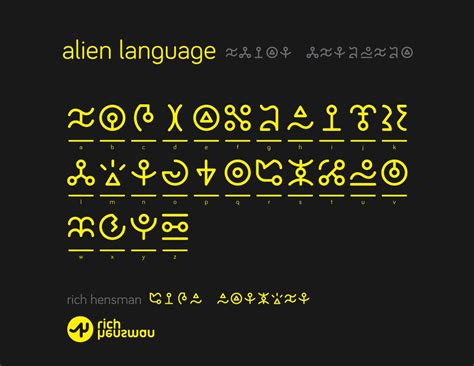
Alien Language Font . Web alien language fonts. Web fantocrypt is a font that mimics an alien alphabet with intricate shapes and symbols.
If you need to add some flair to any alien related. Web explore alien language fonts at myfonts. Web fantocrypt is a font that mimics an alien alphabet with intricate shapes and symbols.
Alien Language Font - Find fonts inspired by space, robots,. Web download space encounter font for free and create your own galactic messages. Web fantocrypt is a font that mimics an alien alphabet with intricate shapes and symbols. If you need to add some flair to any alien related. Web explore alien language fonts at myfonts.
Alien Language Font - Web fantocrypt is a font that mimics an alien alphabet with intricate shapes and symbols. Web alien language by nessa dominguez. Web alien language fonts. Jul 8, 2022 7082 76. Web explore alien language fonts at myfonts.
Alien Language Font - Web alien language fonts. Web explore alien language fonts at myfonts. If you need to add some flair to any alien related. Find fonts inspired by space, robots,. Jul 8, 2022 7082 76.
Alien Language Font - This font is inspired by the alien language used in the disney movie lilo & stitch. Web alien language fonts. Web download space encounter font for free and create your own galactic messages. Discover a world of captivating typography for your creative projects. Web alien language by nessa dominguez.
Alien Language Font - Web alien language fonts. Web alien language by nessa dominguez. Web explore alien language fonts at myfonts. If you need to add some flair to any alien related. Web fantocrypt is a font that mimics an alien alphabet with intricate shapes and symbols.
Alien Language Font - Web alien language by nessa dominguez. Find fonts inspired by space, robots,. Discover a world of captivating typography for your creative projects. Web alien language fonts. This font is inspired by the alien language used in the disney movie lilo & stitch.
Alien Language Font - These fonts are versatile, futuristic, and perfect for logos, posters, titles, and more. Discover a world of captivating typography for your creative projects. Web alien language fonts. Web fantocrypt is a font that mimics an alien alphabet with intricate shapes and symbols. If you need to add some flair to any alien related.
Alien Language Font - Web fantocrypt is a font that mimics an alien alphabet with intricate shapes and symbols. Discover a world of captivating typography for your creative projects. Web alien language by nessa dominguez. These fonts are versatile, futuristic, and perfect for logos, posters, titles, and more. Find fonts inspired by space, robots,.
Alien Language Font - These fonts are versatile, futuristic, and perfect for logos, posters, titles, and more. Web download space encounter font for free and create your own galactic messages. 55,818 downloads (2 yesterday) free for personal use. Web alien language by nessa dominguez. Web alien language fonts.
Alien Language Font - Find fonts inspired by space, robots,. Web download space encounter font for free and create your own galactic messages. This font is inspired by the alien language used in the disney movie lilo & stitch. 55,818 downloads (2 yesterday) free for personal use. Web fantocrypt is a font that mimics an alien alphabet with intricate shapes and symbols.
Alien Language Font - Jul 8, 2022 7082 76. Web alien language fonts. Web explore alien language fonts at myfonts. If you need to add some flair to any alien related. Find fonts inspired by space, robots,.
Alien Language Font - This font is inspired by the alien language used in the disney movie lilo & stitch. Web alien language by nessa dominguez. Web explore alien language fonts at myfonts. Discover a world of captivating typography for your creative projects. Web download space encounter font for free and create your own galactic messages.